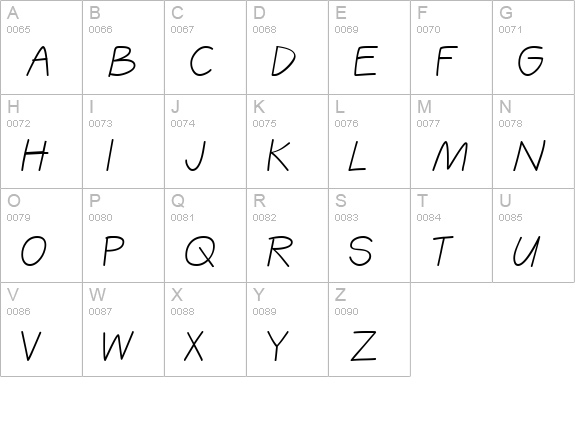
CK Print Font Details
Introducing CK Print font, a stylish and versatile typeface designed to make your projects stand out. This modern font features a unique blend of elegance and readability, making it perfect for a wide range of design applications. With its sleek lines and clean design, CK Print font offers a professional and polished look that is sure to impress. What's even better is that CK Print font is available for free download at FontsMarket.com. Yes, you read that right - this high-quality font can be yours at no cost, allowing you to enhance your designs without breaking the bank. Whether you're working on a logo, poster, website, or any other creative project, CK Print font is the perfect choice to add a touch of sophistication and style. Don't miss out on this amazing opportunity to elevate your designs with CK Print font. Download it for free today and start creating stunning visuals that will leave a lasting impression.